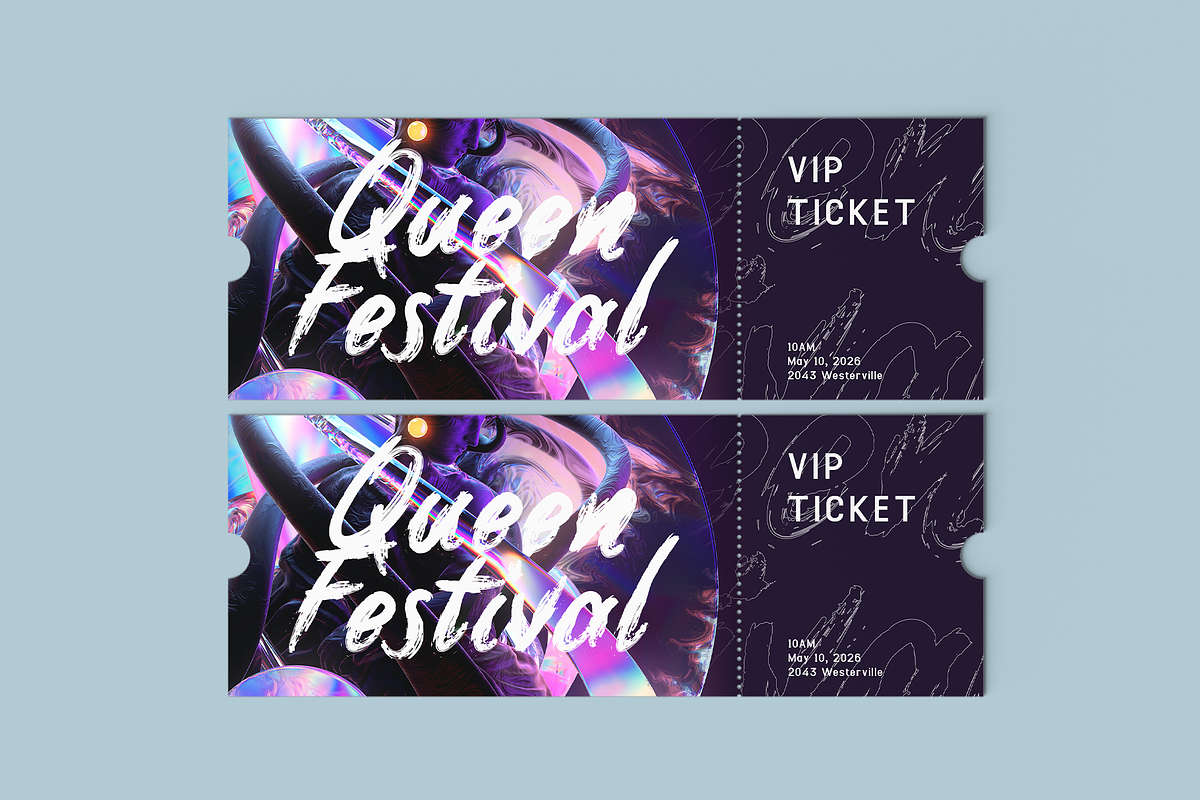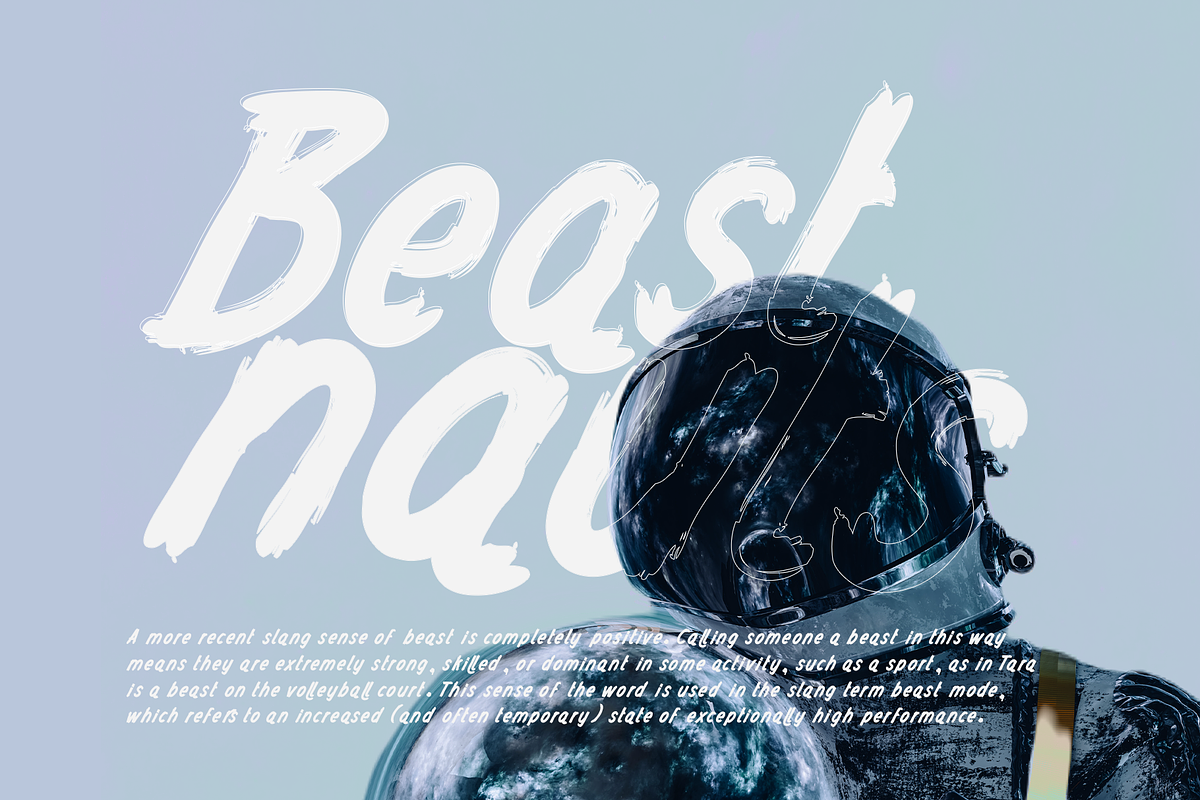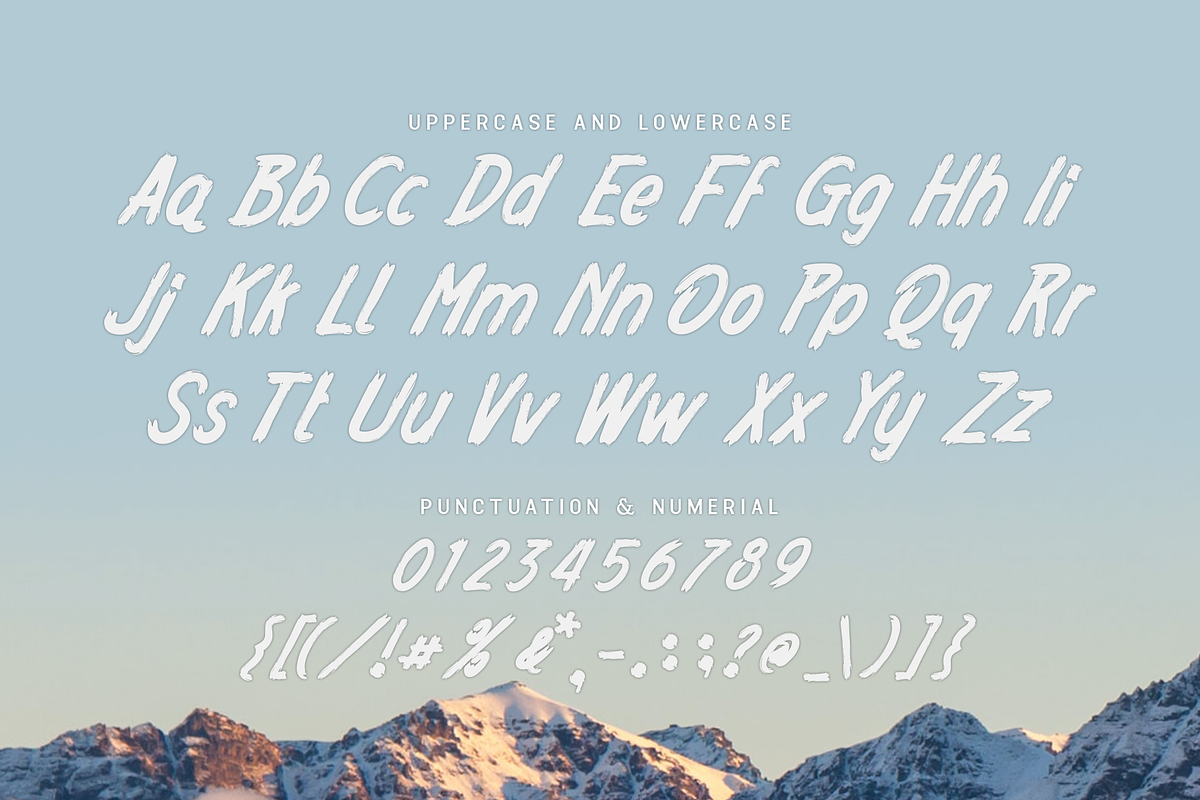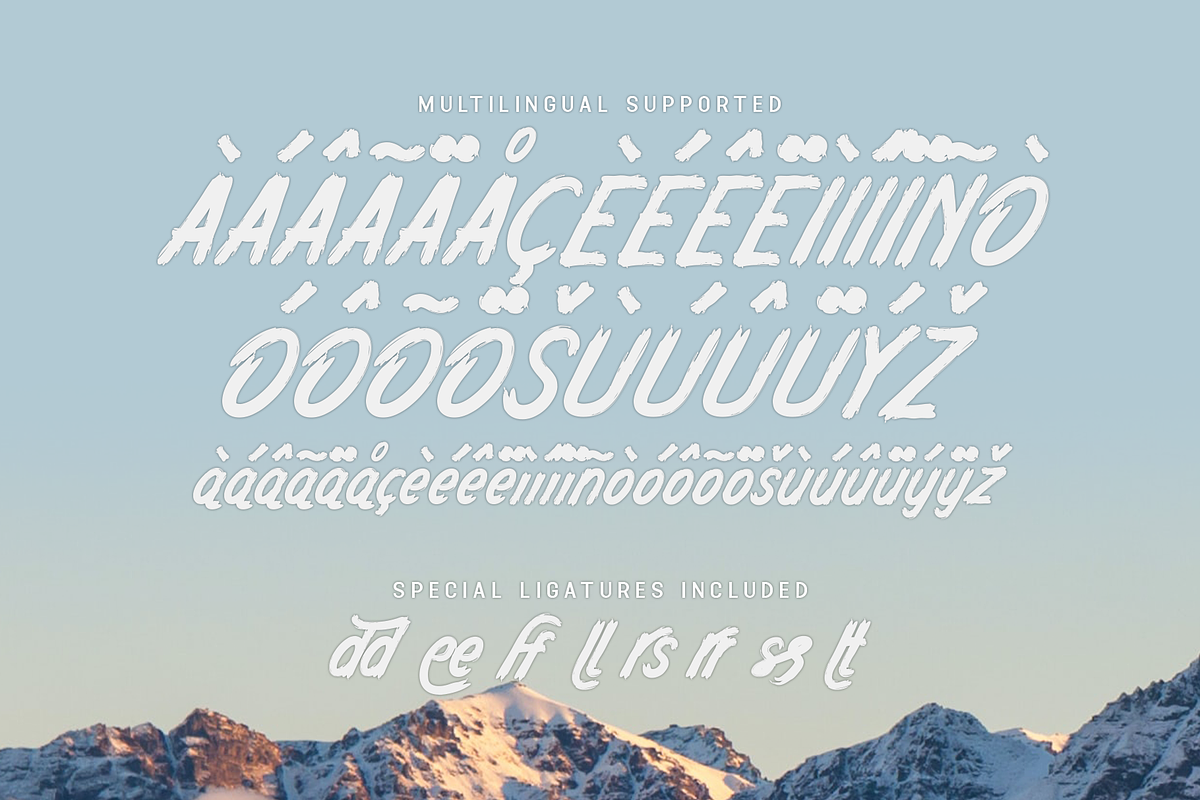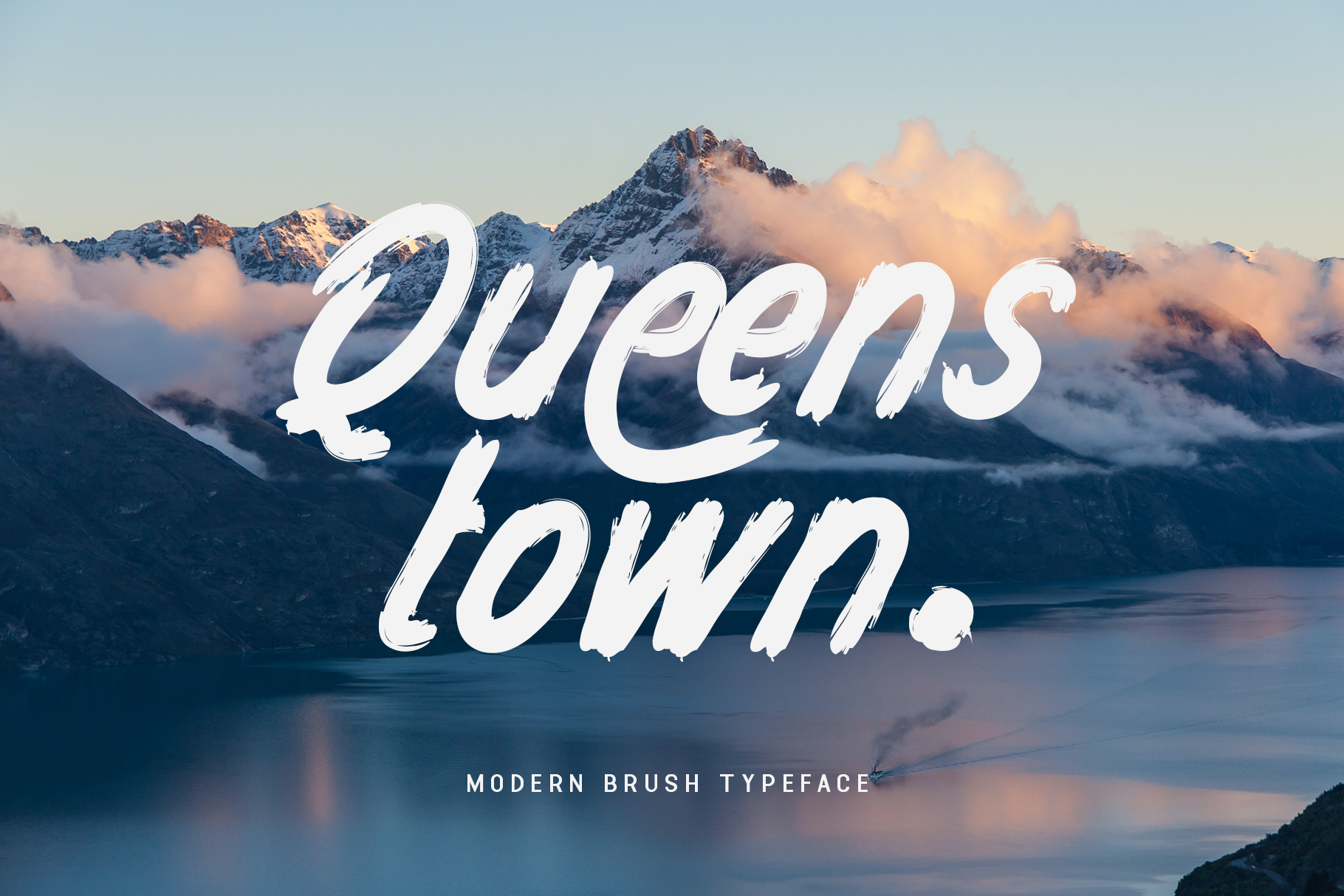
Queenstown - Modern Brush Typeface
Introducing "Queenstown," a modern brush typeface that infuses your designs with energy, personality, and a touch of artistic flair. Perfect for bold branding, eye-catching posters, dynamic social media graphics, and creative invitations, "Queenstown" stands out with its unique and expressive style.
Queenstown features hand-drawn brush strokes that create a natural, textured look, giving your text an authentic and lively appearance. Its irregular and organic shapes add a human touch to any design, making it perfect for projects that require a personal and creative feel. The font includes a complete set of uppercase and lowercase letters, numerals, punctuation, and multilingual support, ensuring versatility for all your design needs.
Whether you're working on branding for a trendy café, designing vibrant event posters, crafting unique invitations, or creating engaging social media content, "Queenstown" provides the bold and dynamic style needed to capture attention and make a statement. Its modern brush strokes and energetic character make it a standout choice for any project.
"Queenstown" is an essential addition to your font collection, offering the dynamic flair needed to elevate your creative work.